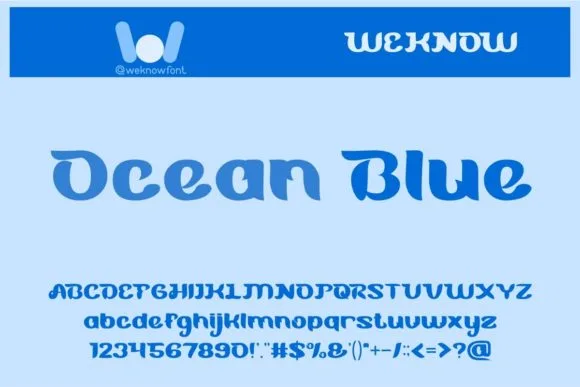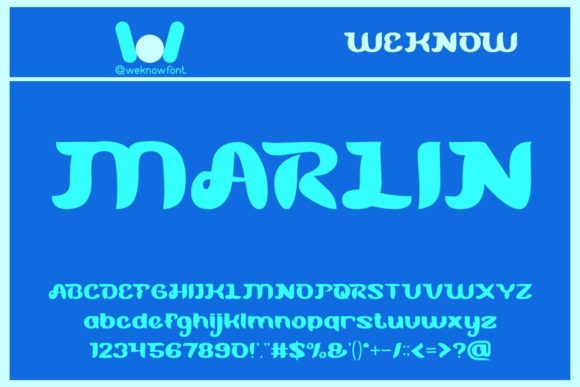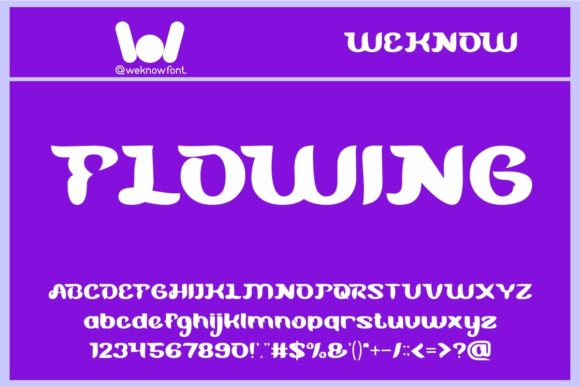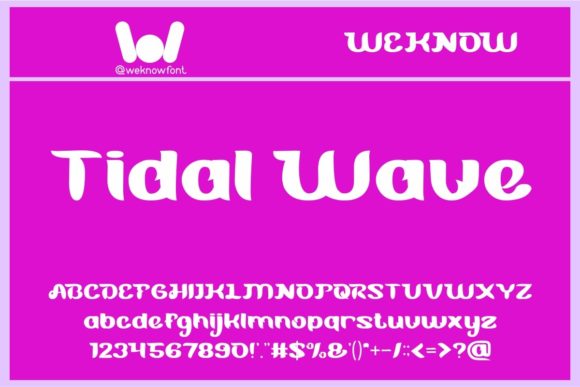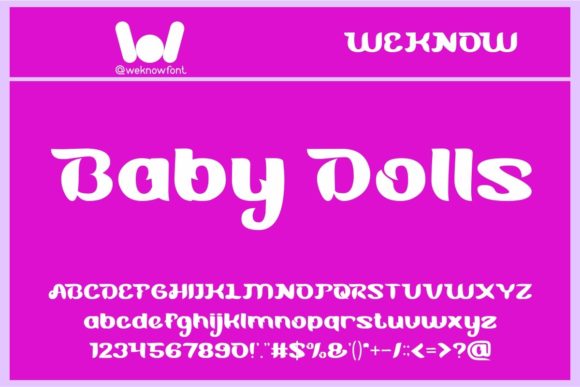
Blue Ocean Font
BLUE OCEAN FONT SPECIMEN
Introducing Blue Ocean, a fancy slab serif font that adds a touch of elegance and sophistication to your designs. With its unique style and versatility, Blue Ocean is suitable for a wide range of creative design projects, making it a perfect choice for logos, logotypes, headlines, corporate identity, brand identity, the apparel industry, posters, music, movies, games, magazines, books, comics, cartoons, YouTube, Instagram, websites, and more.
Blue Ocean’s fancy slab serif design sets it apart as a font that exudes a sense of creativity and uniqueness. Its intricate letterforms and stylish details add a touch of elegance to your designs, making them visually captivating. Whether used in logos or headlines, Blue Ocean creates a memorable impression and leaves a lasting impact.
Logos and logotypes become truly distinctive with the inclusion of Blue Ocean. Its fancy slab serif style adds a touch of sophistication and sets your brand apart from the competition. Blue Ocean enhances the corporate identity and brand identity, reflecting a sense of elegance and professionalism.
Headlines and titles take on a refined and eye-catching appeal with the help of Blue Ocean. Its unique style adds a visual element that grabs attention and adds a sense of prestige. Whether it’s for posters, music albums, movie titles, or game covers, Blue Ocean elevates the overall aesthetic and creates a striking visual impact.
In the apparel industry, Blue Ocean becomes a valuable asset. Its fancy slab serif design enhances the visual identity of clothing brands, adding a touch of elegance and style. Blue Ocean adds a sense of exclusivity and luxury, making your apparel designs stand out in a competitive market.
For magazines, books, comics, and cartoons, Blue Ocean brings a sense of sophistication and creativity to the pages. Its unique style adds a visual element that engages readers and enhances the storytelling experience. Blue Ocean captures attention and creates a visually pleasing layout that captivates the audience.
In the digital realm, Blue Ocean is well-suited for platforms such as YouTube, Instagram, and websites. Its elegant and stylish design adds a professional touch to your digital content, creating a cohesive and visually pleasing brand presence.
In summary, Blue Ocean is a fancy slab serif font that adds elegance and sophistication to your creative design projects. Its suitability for logos, logotypes, headlines, corporate identity, brand identity, the apparel industry, posters, music, movies, games, magazines, books, comics, cartoons, YouTube, Instagram, websites, and more makes it a versatile and valuable choice. Embrace Blue Ocean and let it elevate the visual impact of your designs with its unique style and refined aesthetic.